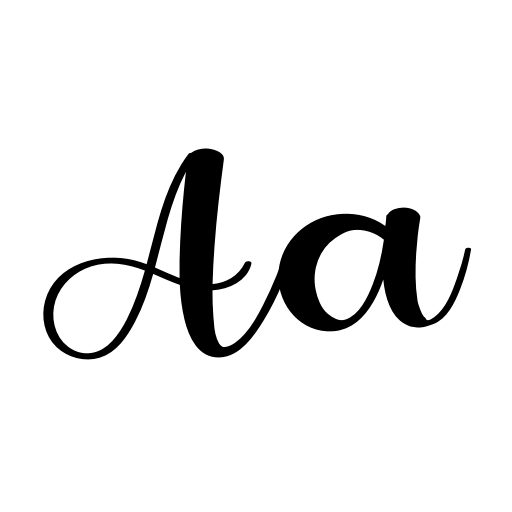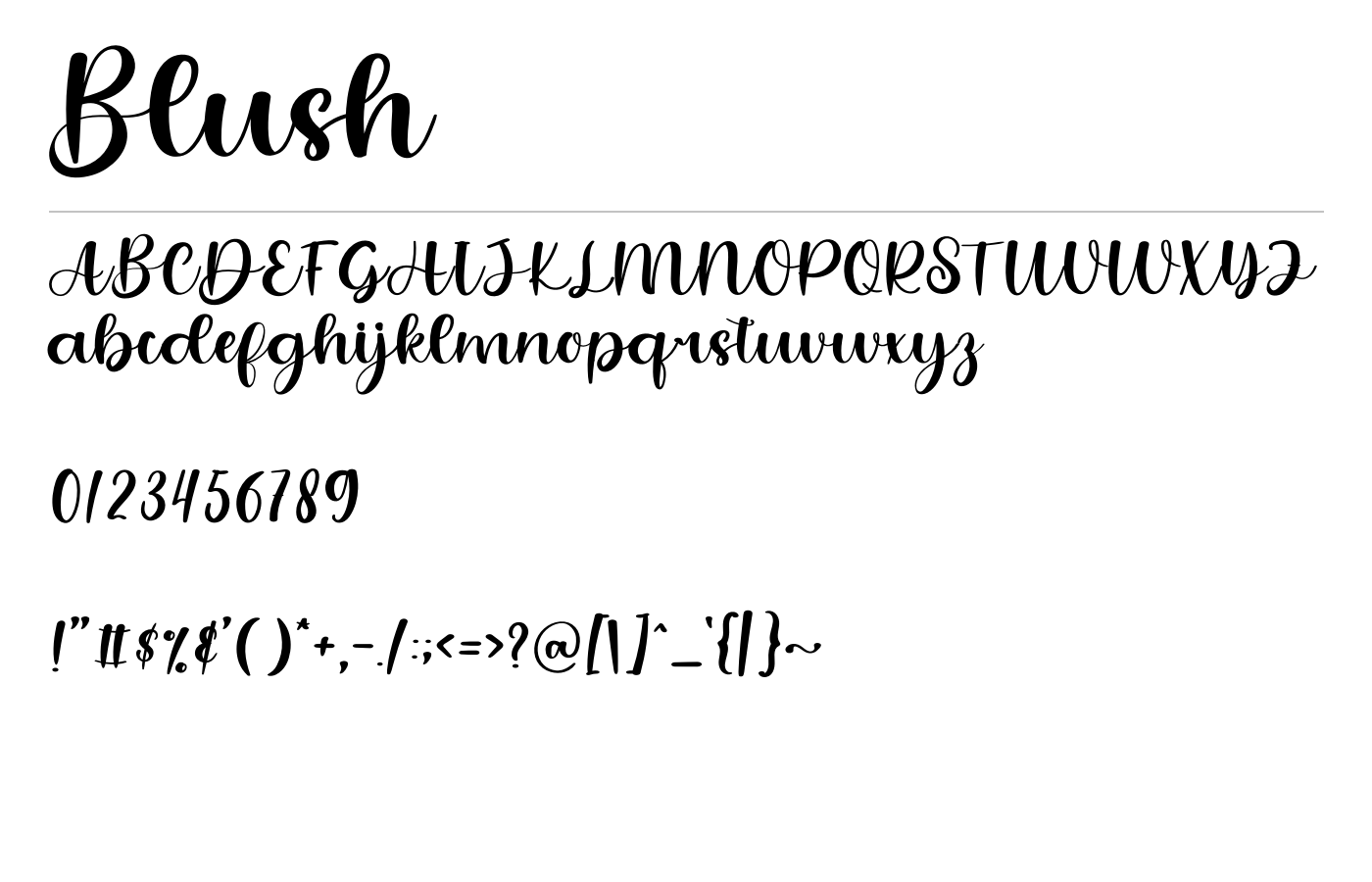
Blush Font is a charming and elegant script typeface with flowing, hand-drawn letterforms that combine both bold and delicate strokes, giving it a lively and warm personality. Its playful yet sophisticated style makes it perfect for creative branding, invitations, and headlines where a friendly, approachable, and stylish look is desired. This font works well for fashion, lifestyle, and wedding designs, adding a personal, artistic touch to any project.
Blush Font
About Blush Font